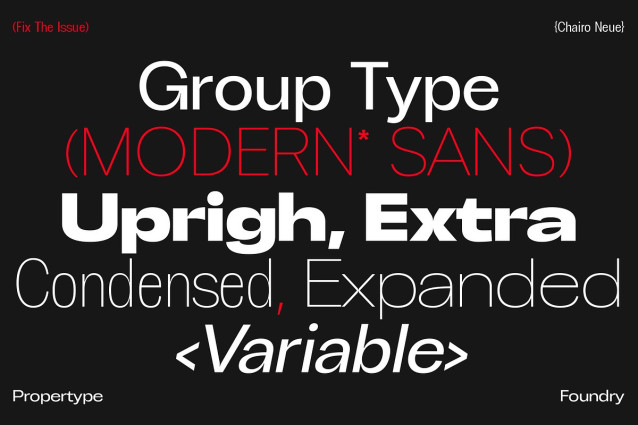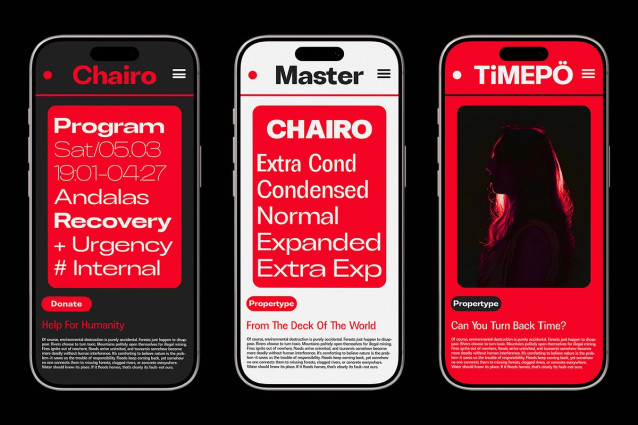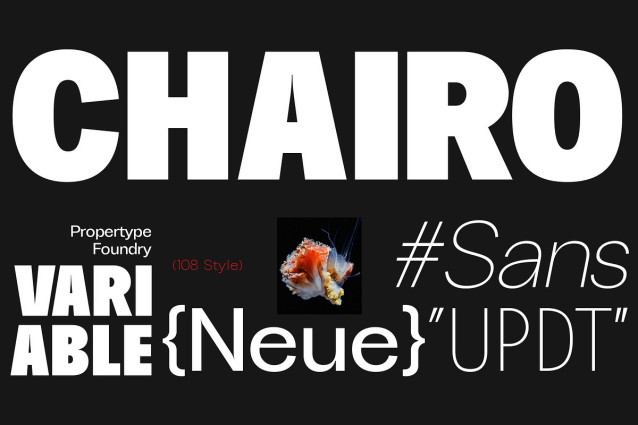
ChairoNeue Font
ChairoNeue Font is an elegant, modern, and contrasting sans serif font family. It comes in 109 styles, including both upright and italic styles, each with seven weights ranging from thin to bold. It’s a versatile font perfect for any project, contrasting, modern, and easy to read. With this font, you can create logos, use it in advertisements, packaging, book and magazine covers, titles, descriptions, and more.